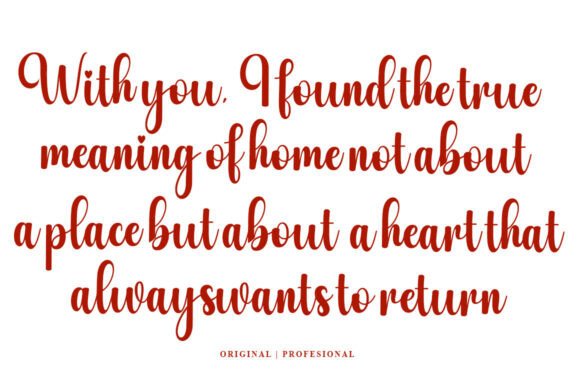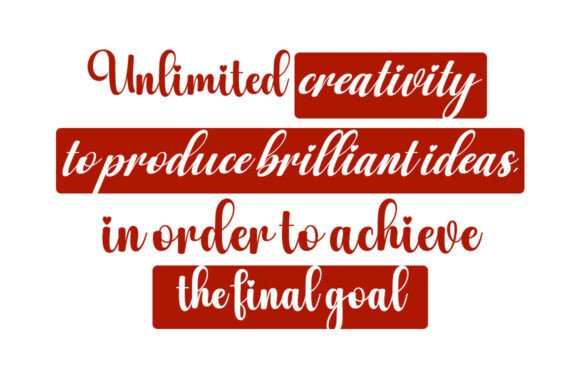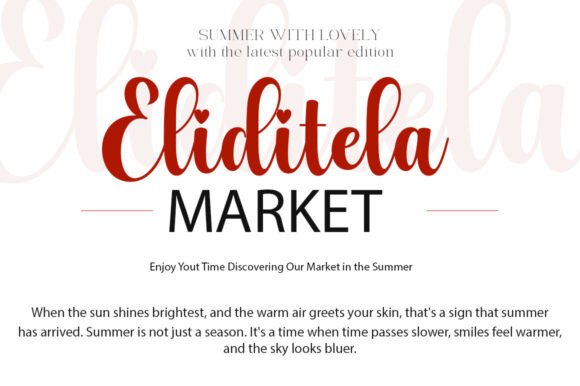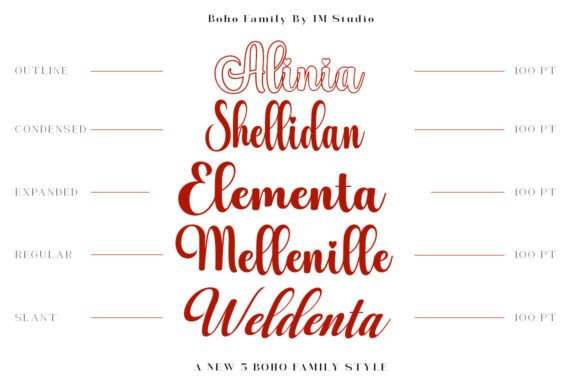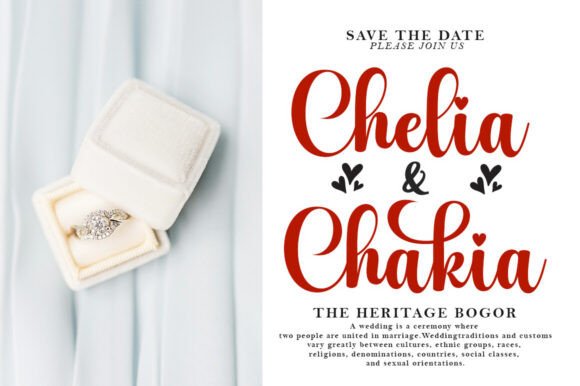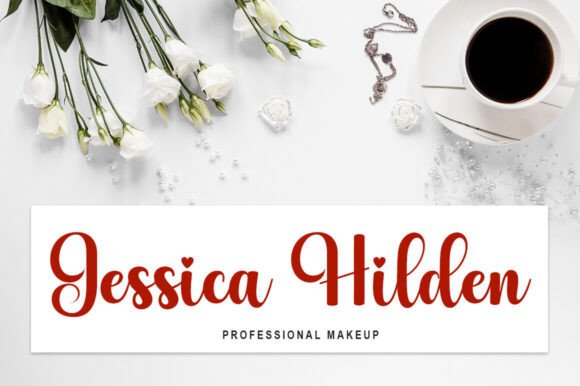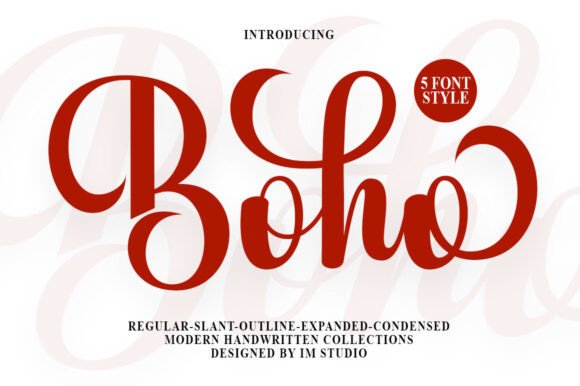
Discover the Enchanting Elegance of Boho Font
Are you a designer or crafter looking for a font that can add a touch of sophistication and whimsy to your creative projects? Look no further than Boho Font, an enchantingly delightful font that combines sweetness and cursive style in a seamless way. With its gentle touch of elegance, Boho’s hand-scribbled characteristics can elevate a wide range of design settings, from romantic wedding invitations to playful branding materials.
The Unique Charm of Boho Font
Boho Font is more than just a collection of letters – it’s an artistic voice that can infuse your designs with joy, romance, and a captivating charm. Its organic curves and naturally flowing rhythm make it perfect for designs that require a personal touch, such as handmade crafts, DIY projects, and social media graphics. Whether you’re a seasoned designer or a crafty DIY enthusiast, Boho Font can help you create visually stunning projects that stand out from the crowd.
Design Features of Boho Font
So, what makes Boho Font so special? Here are just a few of its design features that set it apart:
- Hand-scribbled characteristics: Boho Font’s hand-scribbled style gives it a personal, human touch that’s perfect for designs that require a bit of whimsy and personality.
- Organic curves: Boho’s organic curves make it easy to read and visually appealing, even at small font sizes.
- Naturally flowing rhythm: Boho’s flowing rhythm makes it perfect for designs that require a sense of movement and energy.
- Cursive style: Boho’s cursive style adds a touch of elegance and sophistication to any design.
Using Boho Font in Your Designs
Boho Font is versatile and can be used in a wide range of design settings, including:
- Wedding invitations and stationery: Boho Font’s romantic and elegant style makes it perfect for wedding invitations, save-the-date cards, and other wedding stationery.
- Branding and packaging: Boho Font’s playful and whimsical style makes it perfect for branding materials, such as logos, business cards, and product packaging.
- Social media graphics: Boho Font’s bold and eye-catching style makes it perfect for social media graphics, such as Instagram posts and Facebook headers.
- Handmade crafts and DIY projects: Boho Font’s hand-scribbled style makes it perfect for handmade crafts and DIY projects, such as handmade cards, gift tags, and iron-on designs.
Tips for Getting the Most Out of Boho Font
Here are a few tips for getting the most out of Boho Font:
- Experiment with font sizes: Boho Font looks great at a wide range of font sizes, from small and delicate to large and bold.
- Pair with other fonts: Boho Font pairs well with other fonts, such as sans-serif fonts and script fonts.
- Use in combination with images: Boho Font looks great in combination with images, such as photographs and illustrations.
- Don’t be afraid to get creative: Boho Font is a versatile font that can be used in a wide range of design settings – don’t be afraid to get creative and try new things!
| Font Name | Boho Font |
| Author | IM Studio |
In conclusion, Boho Font is a unique and enchanting font that can add a touch of elegance and whimsy to your creative projects. With its hand-scribbled characteristics, organic curves, and naturally flowing rhythm, Boho Font is perfect for designers and crafters who want to create visually stunning projects that stand out from the crowd. Whether you’re a seasoned designer or a crafty DIY enthusiast, Boho Font is a font that’s sure to inspire and delight.